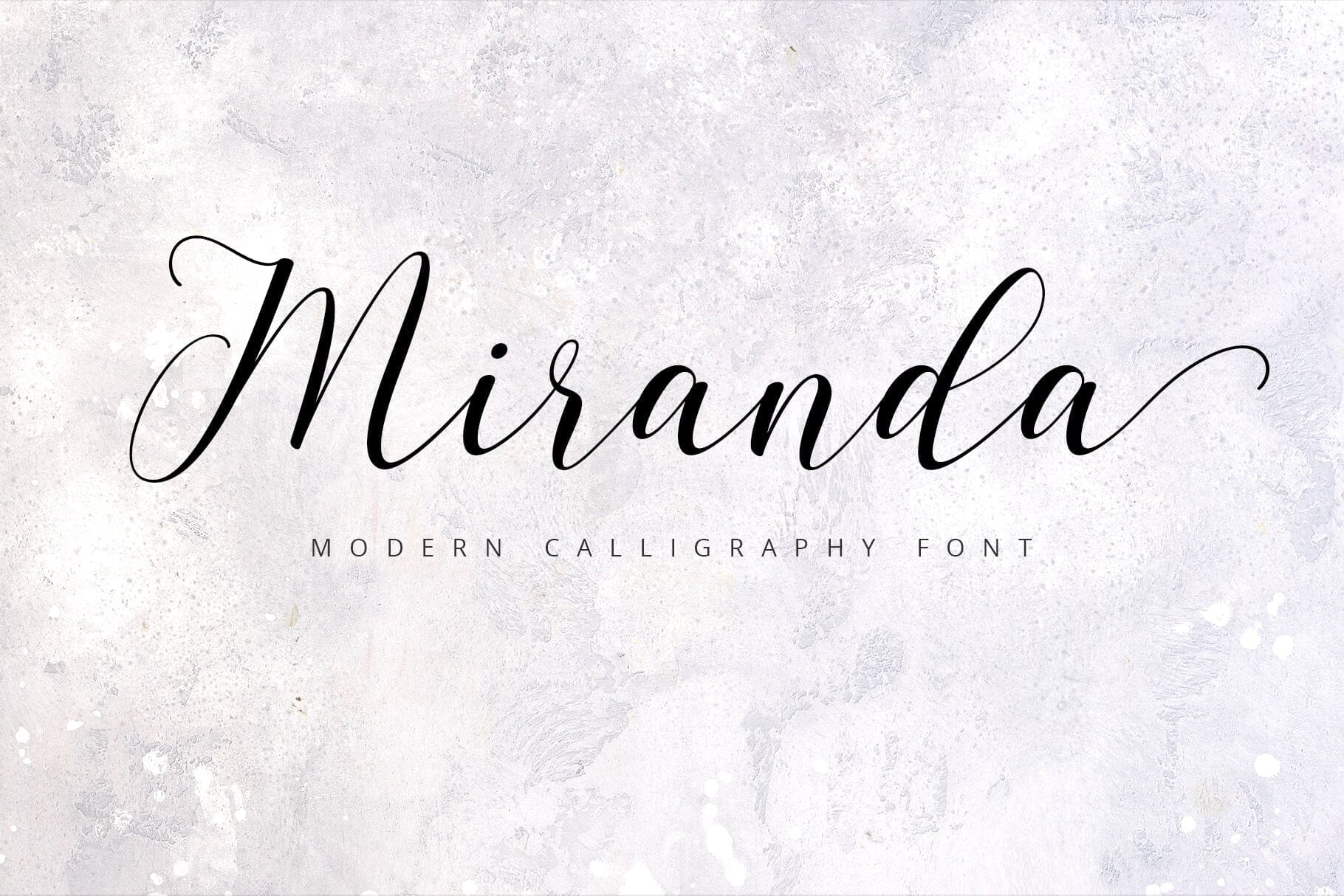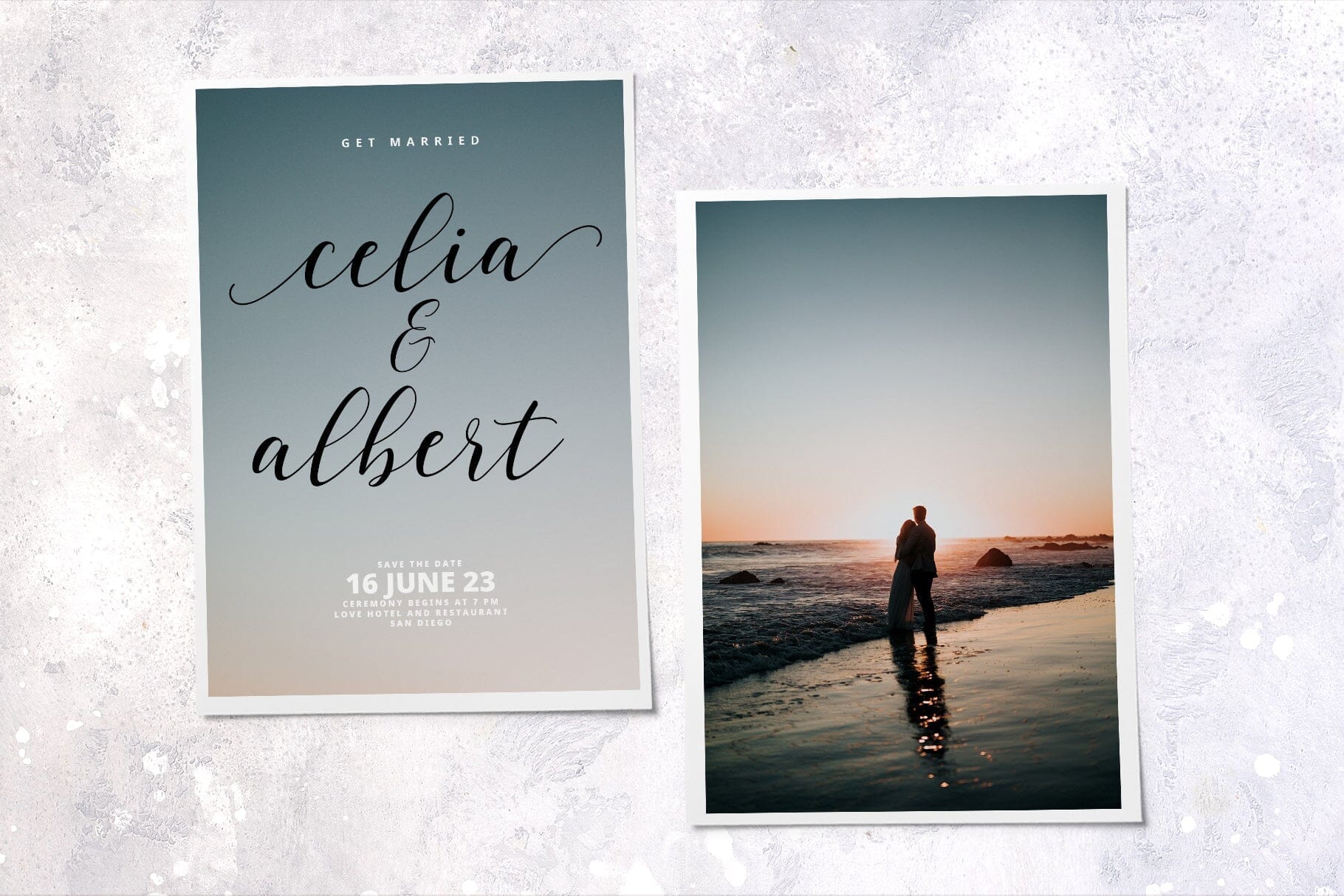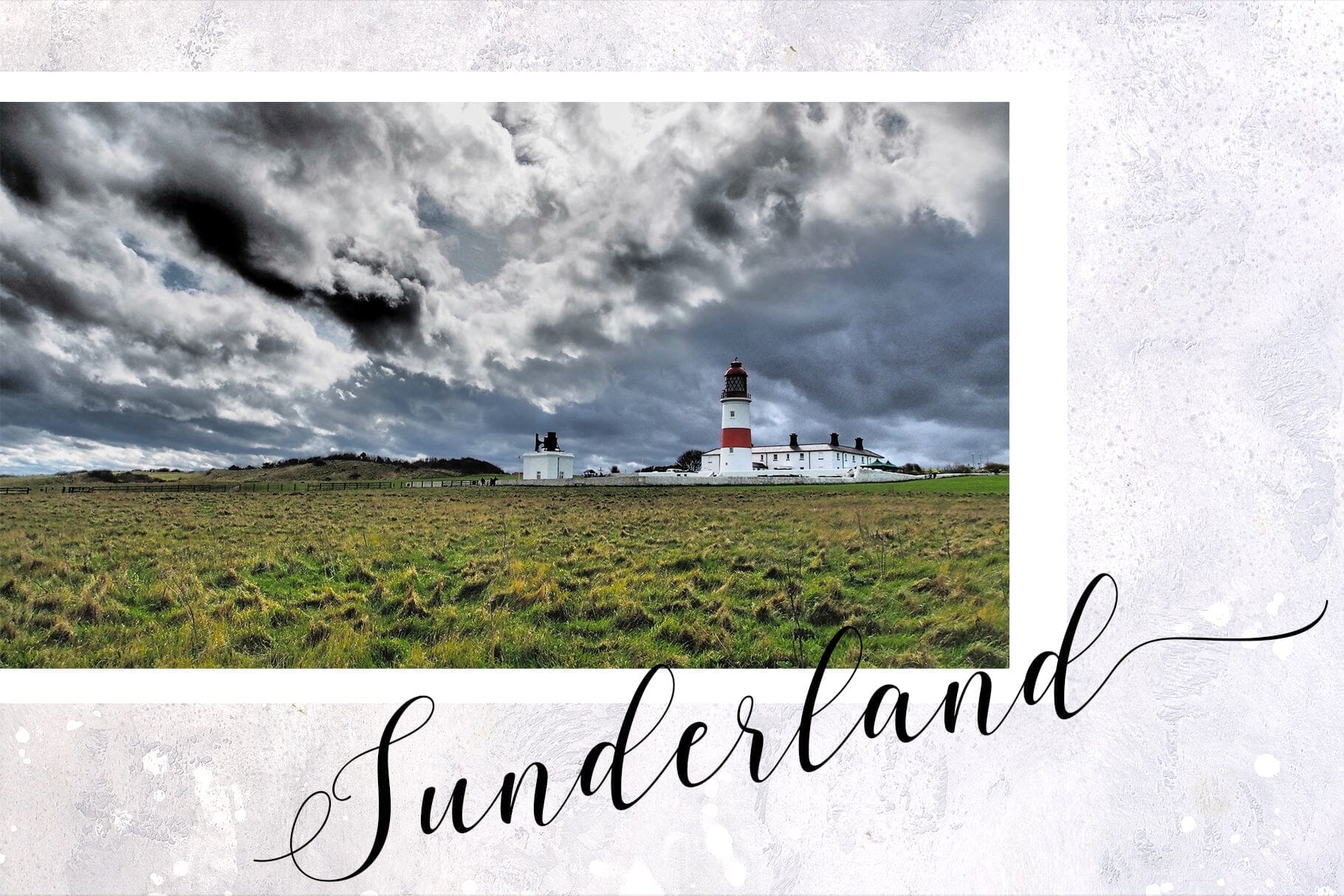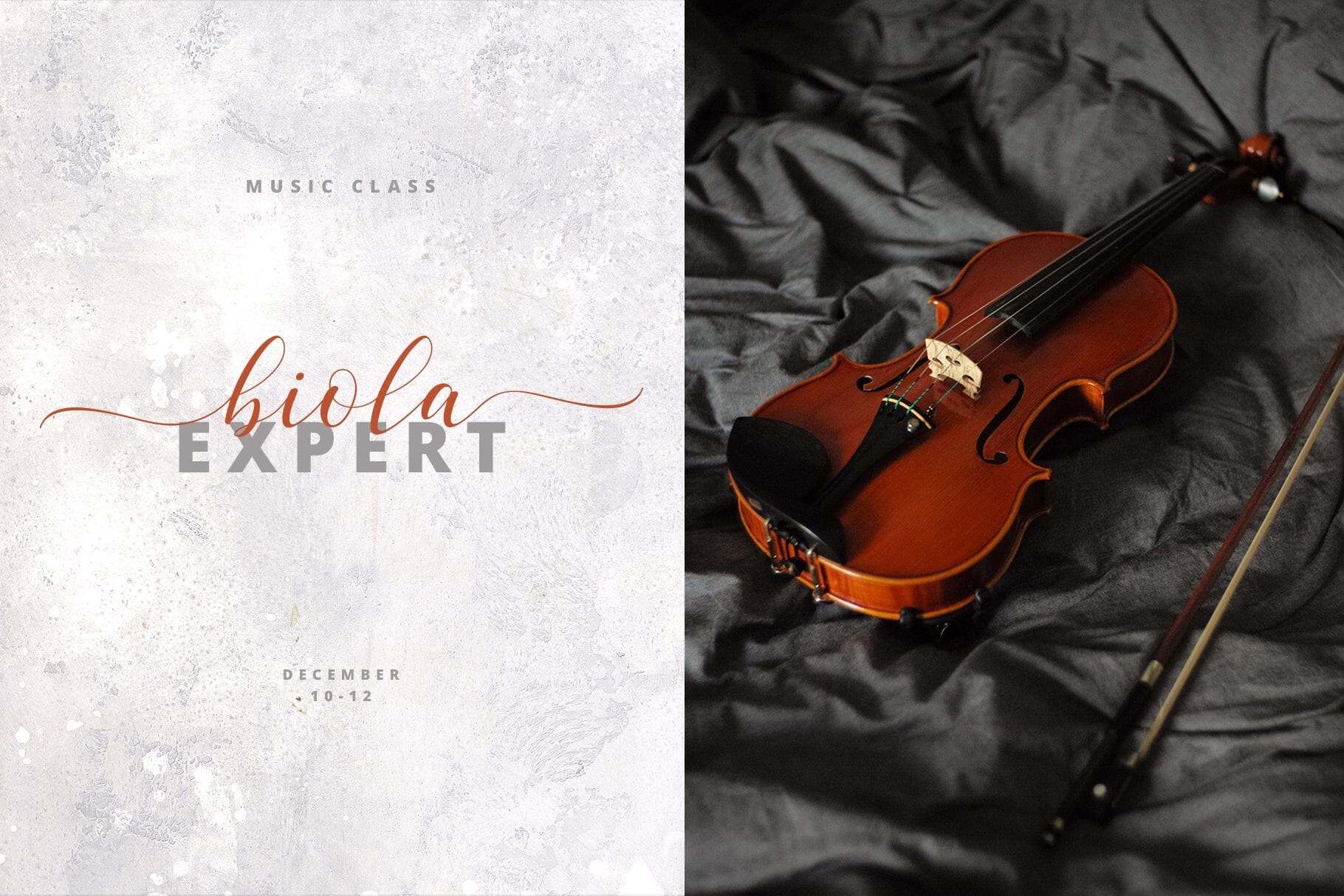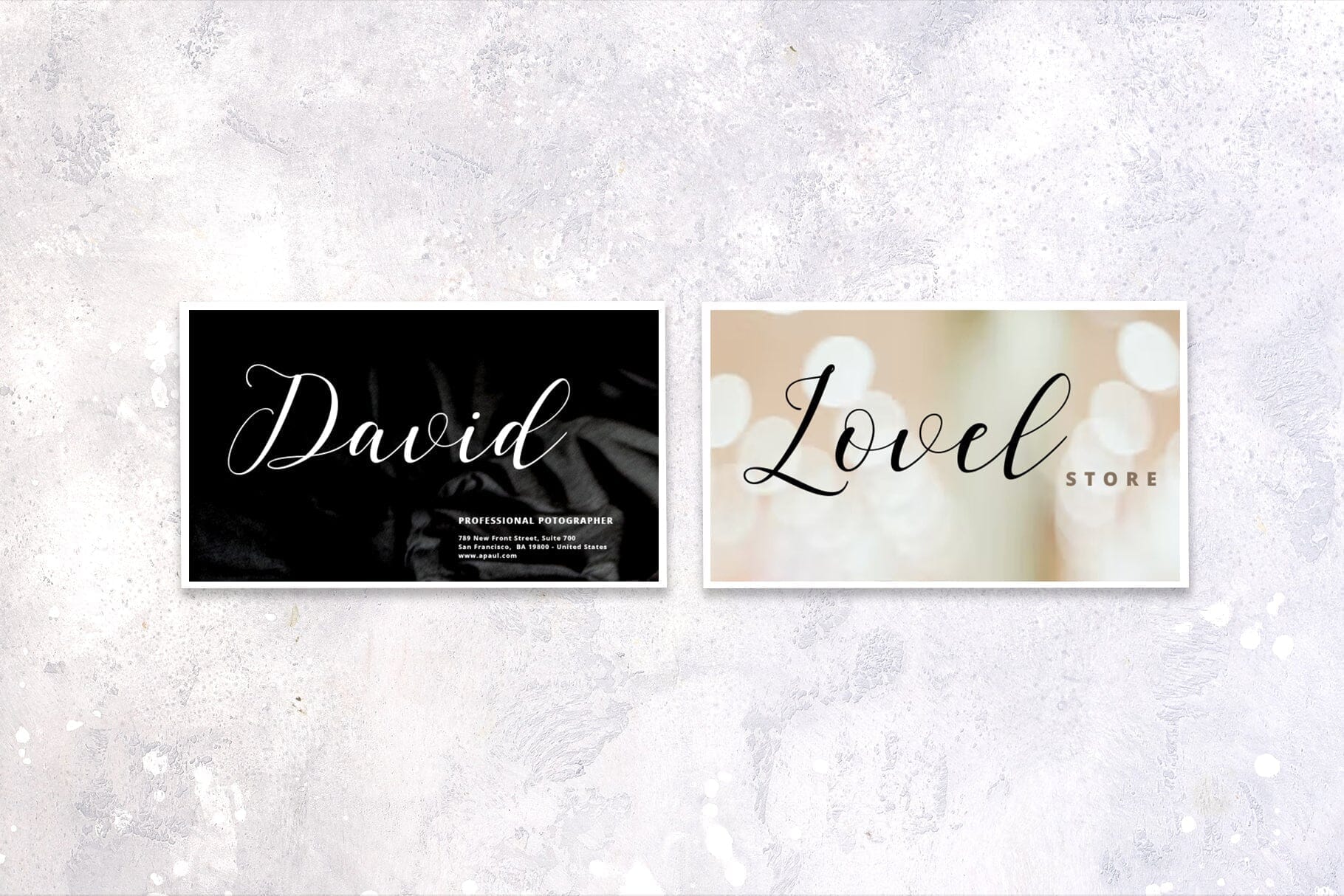
Miranda Script Font | VIP Early Access
Introducing Miranda! This is an elegant calligraphy font that has a casual and luxurious style. This is an upright script font that is made slowly and thorough which aims to convey the character of the writing that is elegant, neat, simple, graceful, firm and still stylish.